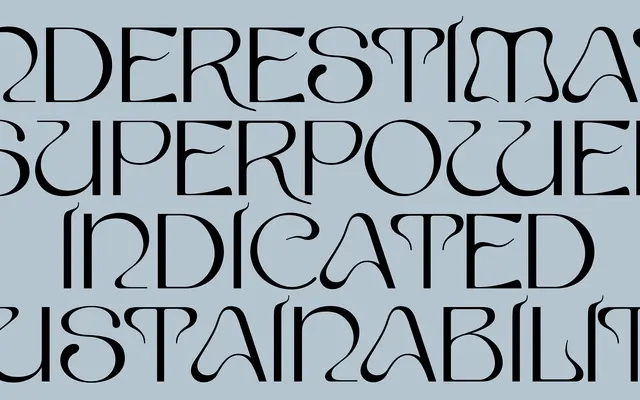
Tenebras
An uppercase-only display face by Domenico Barréto, drawing on Art Nouveau and the 1900 German typeface Edda by Heinrich Heinz Heune.
The letterforms carry the dynamic curves and ornamental warmth of turn-of-the-century Art Nouveau, filtered through a contemporary sensibility suited to editorial headlines and title work. It is uppercase only with a 303-glyph set covering extended Latin diacritics, numerals, fractions and symbols. Best suited to logotypes, magazine covers and short-form display settings where visual weight and historical character are the point.
An uppercase-only display typeface with dynamic curves and historical ornamental influence drawn from Art Nouveau and the 1900 typeface Edda by Heinrich Heinz Heune, placing it firmly in the decorative display category.